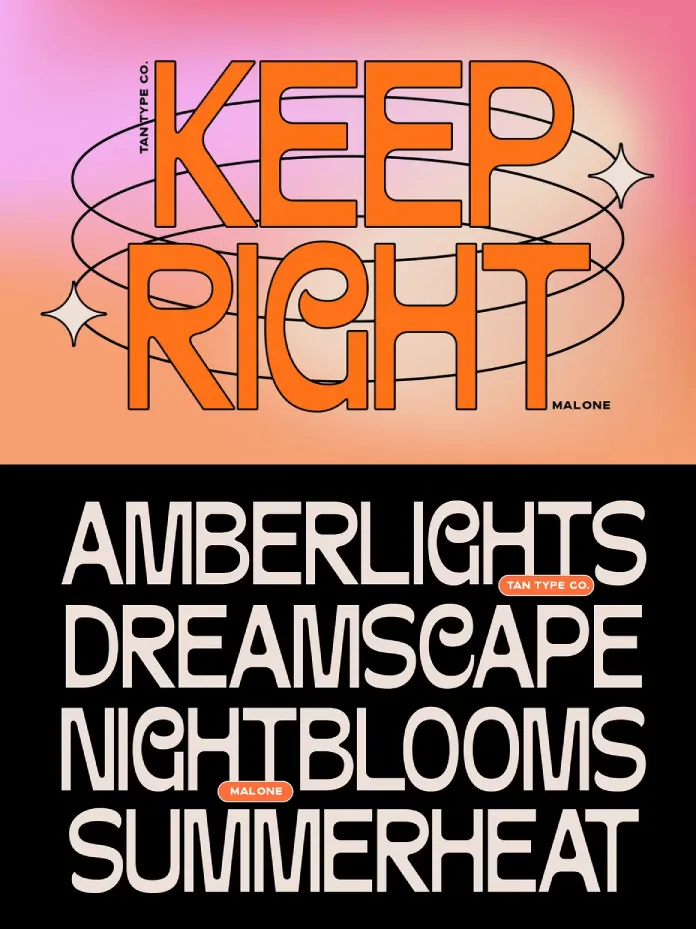
TAN Malone Is the Retro Display Font Your Next Branding Project Has Been Waiting For
Nostalgia is having a moment—but not the lazy kind. Designers aren’t just reaching for dusty textures and faded palettes anymore. They’re chasing something more specific: the feeling of a neon sign reflected in wet asphalt, a motel marquee glowing at midnight, a Hollywood title card from a film you half-remember. That’s exactly the territory TAN Malone by TanType occupies. And it does so with a confidence that’s rare in the retro display category.
Retro typography has become one of the most competitive niches in independent type design. Therefore, a new release needs more than a nostalgic premise to earn its place in a working designer’s font library. TAN Malone earns it. After putting it through real projects—restaurant branding mockups, editorial headlines, packaging concepts, and logotype explorations—this typeface holds up with consistent authority. Here’s everything you need to know about it.
What Makes TAN Malone Different from Other Retro Display Fonts?
TAN Malone sits at the intersection of three distinct visual traditions: vintage American motel signage, Art Deco geometry, and old Hollywood glamour. Most retro fonts anchor themselves in just one of these. Malone pulls from all three simultaneously, and that’s what makes it unusually versatile for a display-only typeface.
The letterforms are tall and proportionally narrow—a construction choice that immediately signals classic signage DNA. Consequently, the typeface has strong vertical rhythm. You feel the upward pull of each character even before you read a single word. At the same time, the curves are soft and rounded at their terminals, which prevents the font from reading as cold or overly geometric. This balance between structure and warmth is what I’d call its neon warmth coefficient—a quality where the architectural rigidity of Art Deco meets the approachable glow of a diner sign at 11 pm.
That tension is the whole point. TAN Malone doesn’t try to be one thing. It’s bold but never aggressive. It’s nostalgic but never clichéd. It evokes a specific era without locking you into a period piece aesthetic.
The Anatomy of the TAN Malone Letterforms
Look closely at individual characters, and you’ll notice a deliberate design language. The uppercase letters carry the weight of the font’s personality. They’re confident, with generous counters that stay open even at smaller display sizes. The geometry is soft-edged—think Art Deco filtered through a roadside sign painter rather than a Manhattan skyscraper architect.
Several letterforms show particularly interesting construction choices. The uppercase M has a measured, symmetrical descent in its central V-junction that feels calligraphic without being ornate. The G has a tucked spur that echoes mid-century American signage lettering without copying it directly. The O and Q sit on subtly elliptical bodies—slightly taller than they are wide—which reinforces the typeface’s tall proportional logic.
These aren’t accidents. Moreover, they’re the kind of micro-decisions that separate a thoughtfully designed display typeface from a template-based nostalgia exercise. TanType clearly spent time studying primary source material.
The Roadside Americana Aesthetic: Why It Resonates Right Now
There’s a cultural reason this visual language is landing so well in 2025. Audiences are exhausted by hyper-polished, algorithm-optimized design. As a result, anything that carries genuine warmth and a sense of physical place feels refreshing. Motel signage, diner typography, and neon-lit Americana connect to an idea of slowness—of actual places with actual character.
TAN Malone taps directly into that appetite. Its visual vocabulary reads as pre-digital, even when used in fully contemporary contexts. Place it on a tote bag, a cocktail menu, or a brand identity for an independent hotel, and it immediately signals authenticity. It doesn’t look like it was generated. It looks like it was made.
This is what I call the Handmade Illusion Index—the degree to which a digital typeface convincingly evokes the warmth of hand-lettered or hand-painted work without actually being either. TAN Malone scores exceptionally high on this scale. Furthermore, it achieves this while maintaining precise geometric construction. That’s a difficult balance, and the designer handles it well.
Where Does Old Hollywood Come In?
The old Hollywood influence shows most clearly in how TAN Malone handles weight distribution. The strokes have a cinematic confidence—thick and deliberate, without the spidery decorative flourishes that make some Art Deco fonts feel overwrought. Think title cards from a 1940s picture show rather than a Great Gatsby party invitation.
This restraint is important. It means the font works in contexts that require authority—a headline, a brand name, a poster credit—without demanding attention in the wrong way. It holds the frame rather than stealing it.
Testing TAN Malone in Real Design Contexts
Is TAN Malone a good investment for professional designers?